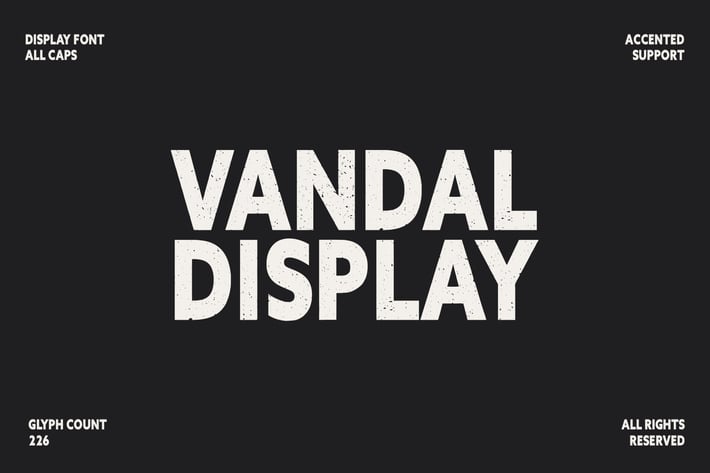
Vandal Display Font All Caps Sans Serif Typeface
Vandal is a rough sans serif font files. Vandal Sans is perfectly suited to branding, logos, magazines, films, website, headlines, titles, captions, games, apps, posters, t-shirts and more.